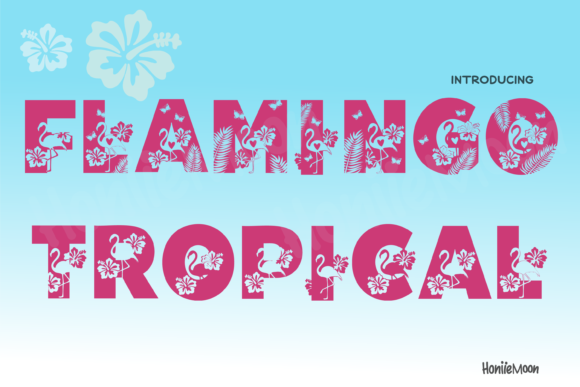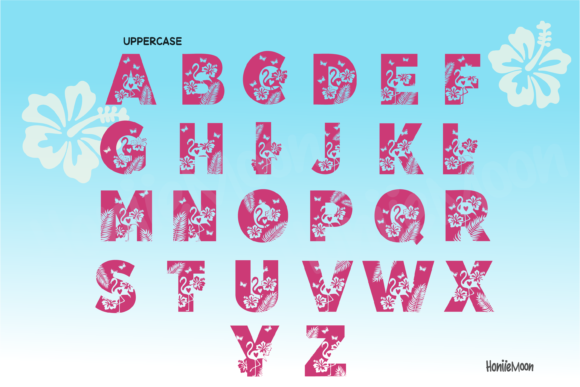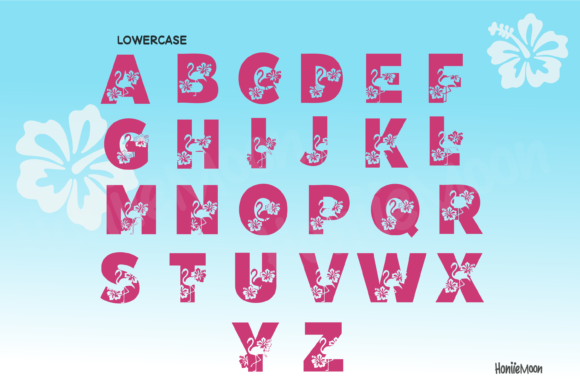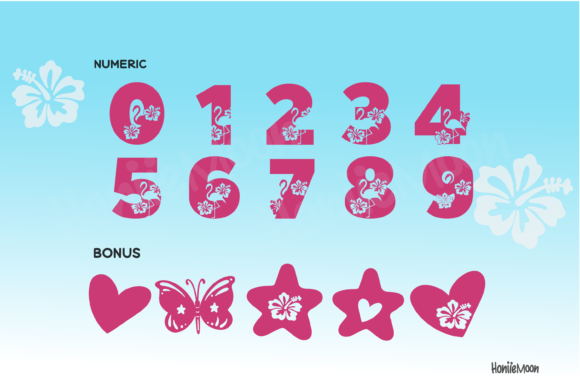
Flamingo Tropical Font
About the Flamingo Tropical Font
Flamingo Tropical’s playful personality makes it ideal for headlines, short text blocks on posters, branding for children’s products or summer-themed businesses, and eye-catching packaging designs. Its decorative nature, however, makes it less suitable for body text or UI elements where readability is paramount. Long paragraphs set in this font would be difficult to read.
Consider pairing Flamingo Tropical with a clean sans-serif like Open Sans for a balanced contrast, or a more playful script font like Pacifico for a cohesive, enhanced sense of whimsy. A geometric sans-serif could also create a modern and striking combination.
The font’s overall aesthetic is best described as bold and friendly, radiating a joyful energy. It’s a strong choice for projects that require a fun, approachable, and memorable visual identity.
Flamingo Tropical Font Usage Examples
Flamingo Tropical Font Example